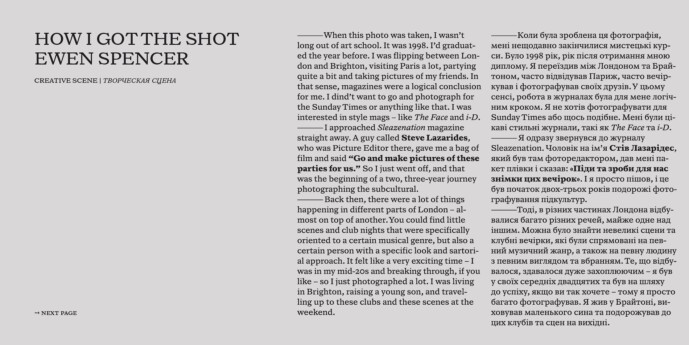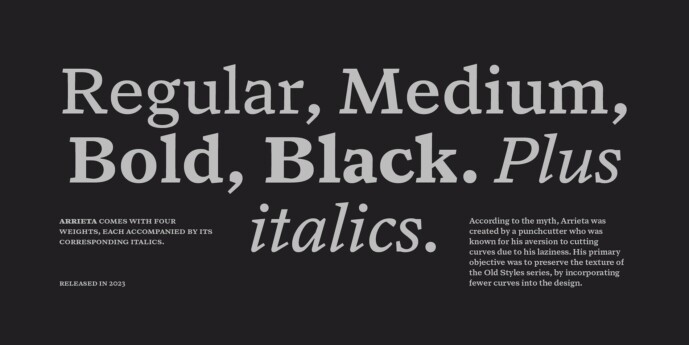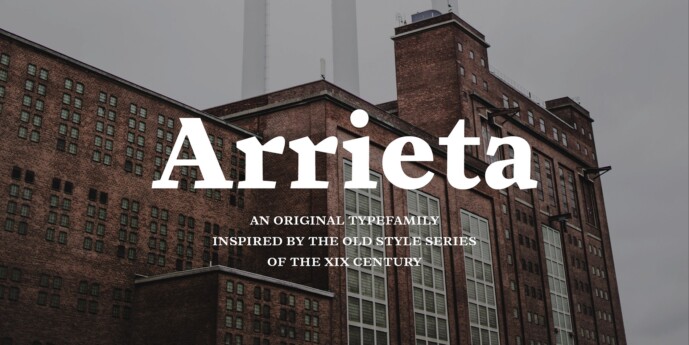
Arrieta Font Family
Designer: W Type Foundry
Arrieta Font Family is a versatile typeface family designed to serve various design purposes. It combines the traditional mechanical typography process of punch cutting with the expressive strokes of a nib pen, resulting in a reliable, angled typeface.